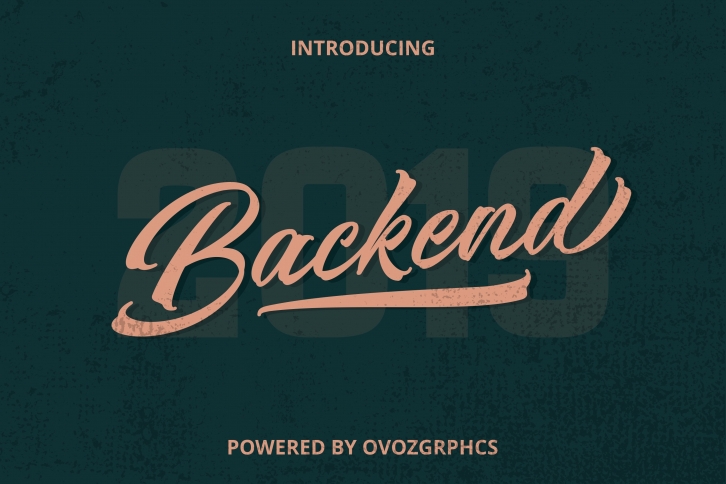
Backend Script Font Download
Backend Script is a trendy and unique font with an authentic style. It was designed by Ovoz shop and it's a great choice for creative people who need such a font. It was released on May 13, 2019 and the file size is 7.78 MB. Backend Script will add an organic vibe to any design idea!